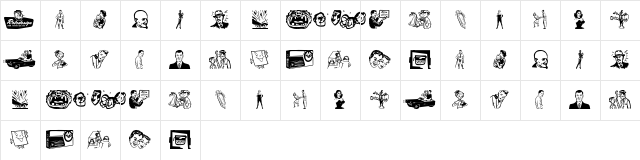
Rotodesign Dingbats Free Font
Rotodesign Dingbats
Style: Dingbats
Design Context for Rotodesign
Rotodesign is a composed and adaptable typeface that performs quietly and consistently across a wide range of design contexts.